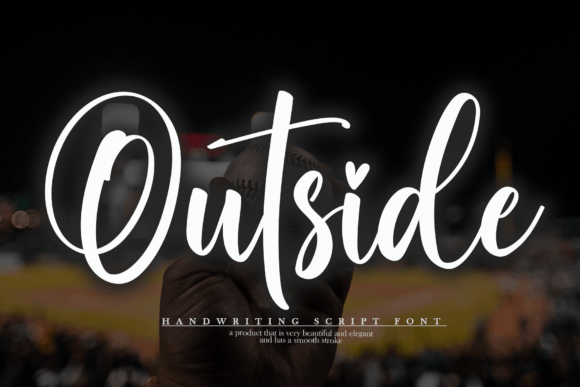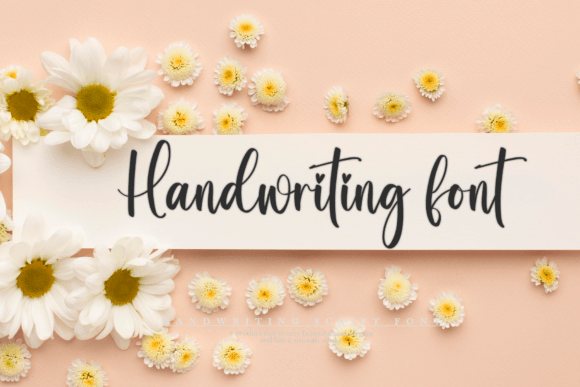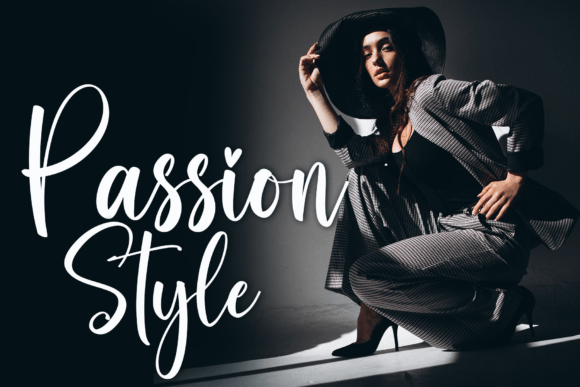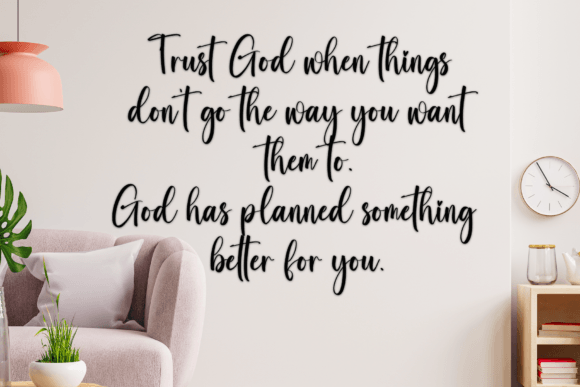
About the Outside Font
Elevate your designs with Outside Font, a font that combines sophistication with readability. Outside is a cute and casual handwritten font with an incredibly friendly feel. Whether you’re looking for fonts for Instagram or calligraphy scripts for DIY projects, this font will turn any creative idea into a true piece of art!
Outside Font’s friendly, casual style makes it ideal for projects requiring a warm, approachable feel. It excels in short text applications such as logos, social media graphics, and packaging for handmade goods or children’s products. However, its handwritten nature and inconsistent letterforms make it unsuitable for body text or lengthy content. Legibility suffers at smaller sizes.
Consider pairing Outside Font with a clean sans-serif like Open Sans for a balanced contrast, or a playful geometric sans-serif like Montserrat for a more modern feel. For a touch of sophistication, a delicate serif like Lora could also work well. Avoid pairing it with other script fonts, as this could lead to visual overload.
The overall personality is best described as friendly and approachable, with a hint of playfulness. Its informal style lends itself well to brands targeting a younger demographic or those emphasizing craft and authenticity.